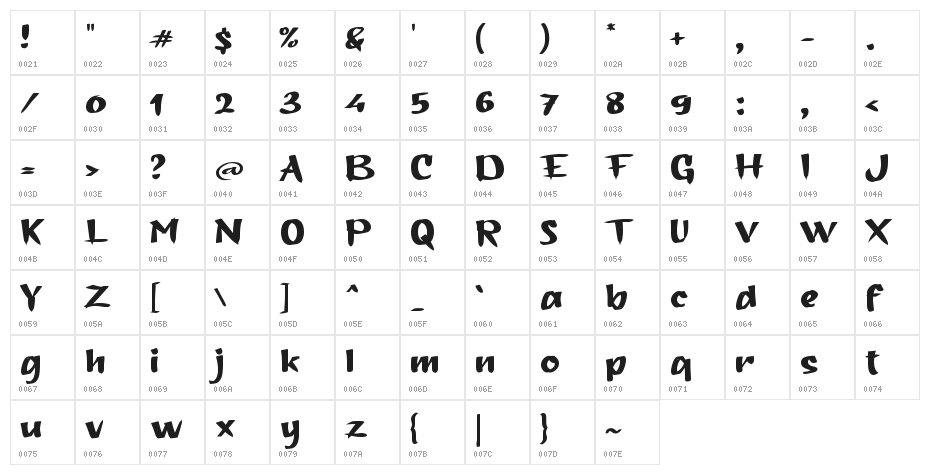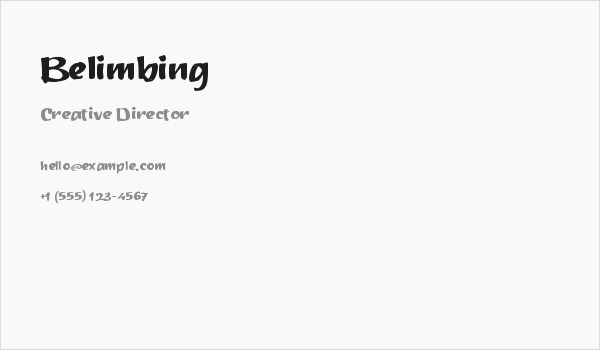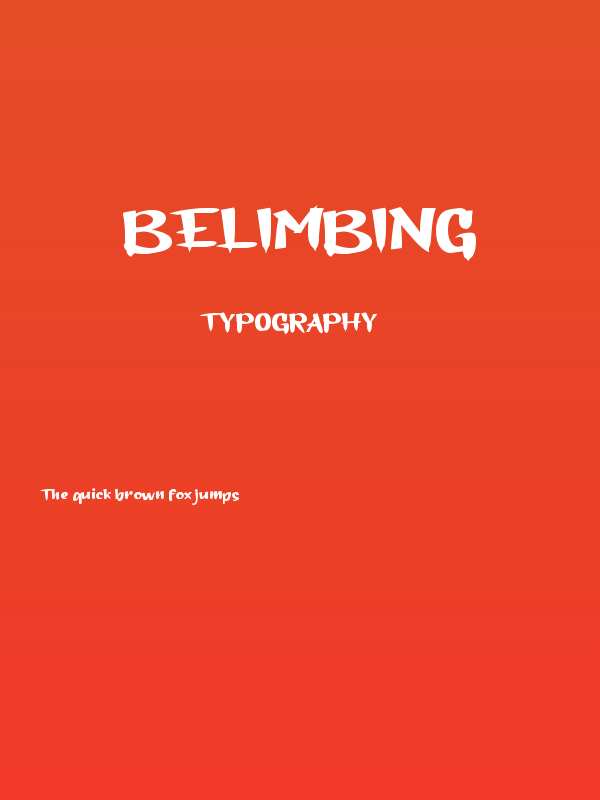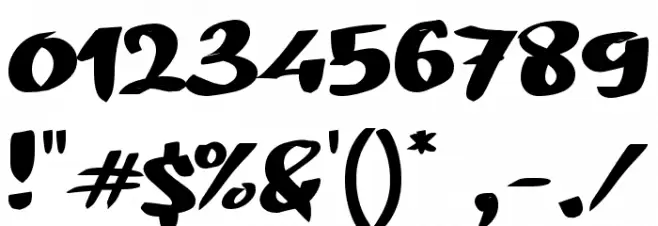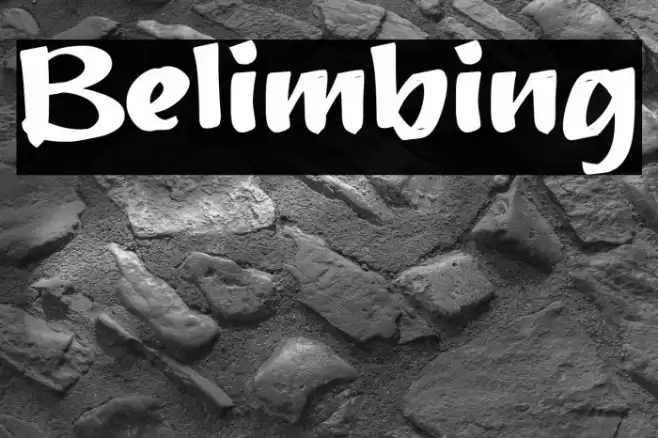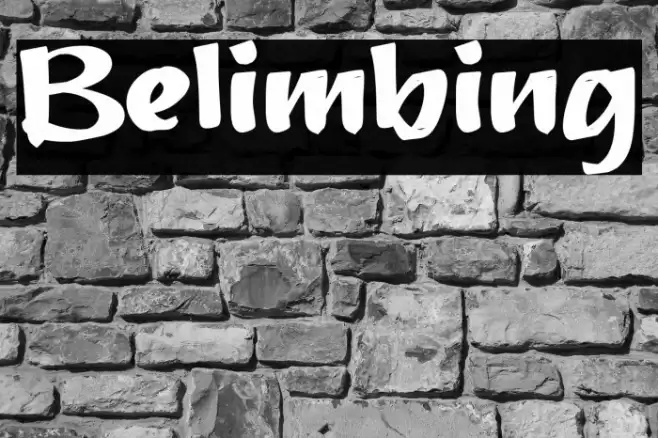
Belimbing Font
Belimbing Description
This font exhibits a bold, expressive style with a brush-like appearance, characterized by thick strokes and dynamic curves. The uppercase letters are particularly striking, with sharp angles and a sense of movement that suggests a hand-drawn quality. The lowercase letters maintain this energetic style, offering a cohesive look across both cases. Numbers and special characters are equally bold, ensuring readability and impact. The overall design is reminiscent of graffiti or street art, making it ideal for projects that require a strong, artistic statement.